Best Chalk Fonts on Canva (Free & Paid Picks That Actually Work)
Think of fonts as the voice of your visuals. If you pick the wrong ones, a great idea can easily end up looking just ‘okay.’ So, if you’re tired of your signs and flyers looking boring, this guide to Canva Chalk Fonts is for you. We’re keeping things simple, no overwhelming pictures. We’ll just show you catchy, easy-to-read chalk fonts that naturally grab people’s attention. Just pair them with a clean font, check how it looks from a distance, and let your words do all the work.
Quick Answer
The best chalk fonts on Canva are Six Hands Chalk, Cabin Sketch, Schoolbell, Just Another Hand, Berton, Rushk, Sigher, Brightwall, Jeju Hallasan, and Anton. These fonts work well for menus, classroom posters, wedding signs, social graphics, café boards, and rustic branding because they are eye-catching, easy to use, and create a hand-drawn chalk look.
What Makes a Good Chalk Font?
A strong chalk font should do these things:
- Look hand-drawn or textured
- Stay readable
- Feel warm and creative
- Match a chalkboard theme
- Work well in headings and signs
If a font looks artistic but feels hard to read, it loses value fast.
Best Chalk Fonts on Canva
| Font Name | Best For | Style | Availability |
| Six Hands Chalk | Chalkboards, Signs | Real Chalk | Free |
| Cabin Sketch | Posters, Titles | Sketch Chalk | Free |
| Schoolbell | Classroom Graphics | Friendly Handwritten | Free |
| Just Another Hand | Menus, Flyers | Casual Chalk | Free |
| Berton | Signs, Posters | Bold Rustic | Free |
| Rushk | Branding | Rough Display | Free |
| Sigher | Invitations | Stylish Handwritten | Free |
| Brightwall | Social Graphics | Creative Chalk | Free |
| Jeju Hallasan | Cute Designs | Casual Handwritten | Free |
| Anton | Promotions, Ads | Heavy Bold | Free |
| League Spartan | Bold Titles | Strong Sans Serif | Free |
| Bebas Neue | Posters | Tall Bold | Free |
| Permanent Marker | Fun Graphics | Casual Bold | Free |
| Teko | Flyers | Condensed Bold | Free |
| Michroma | Modern Signs | Sleek Bold | Free / Varies |
Best Chalk Fonts by Use Case
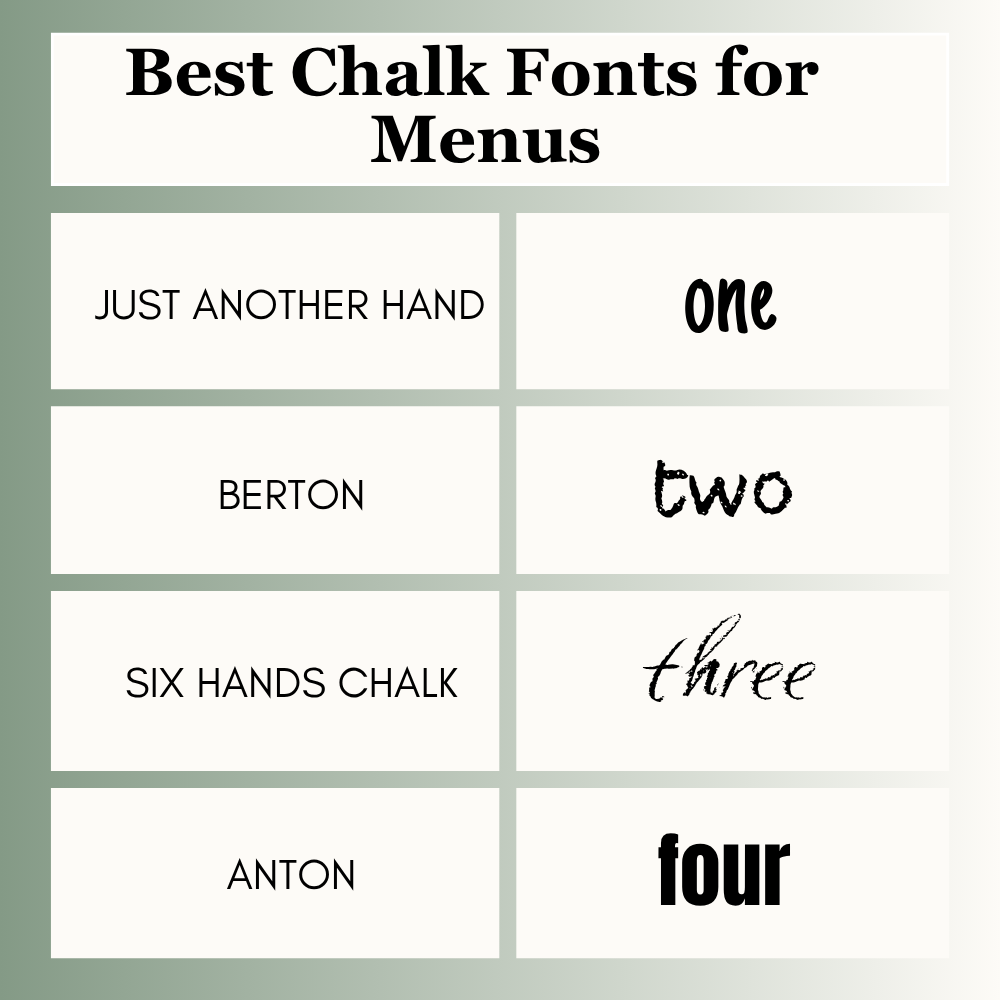
Best Chalk Fonts for Menus
Menus should feel clear and welcoming.
Best picks:
- Just Another Hand
- Berton
- Six Hands Chalk
- Anton
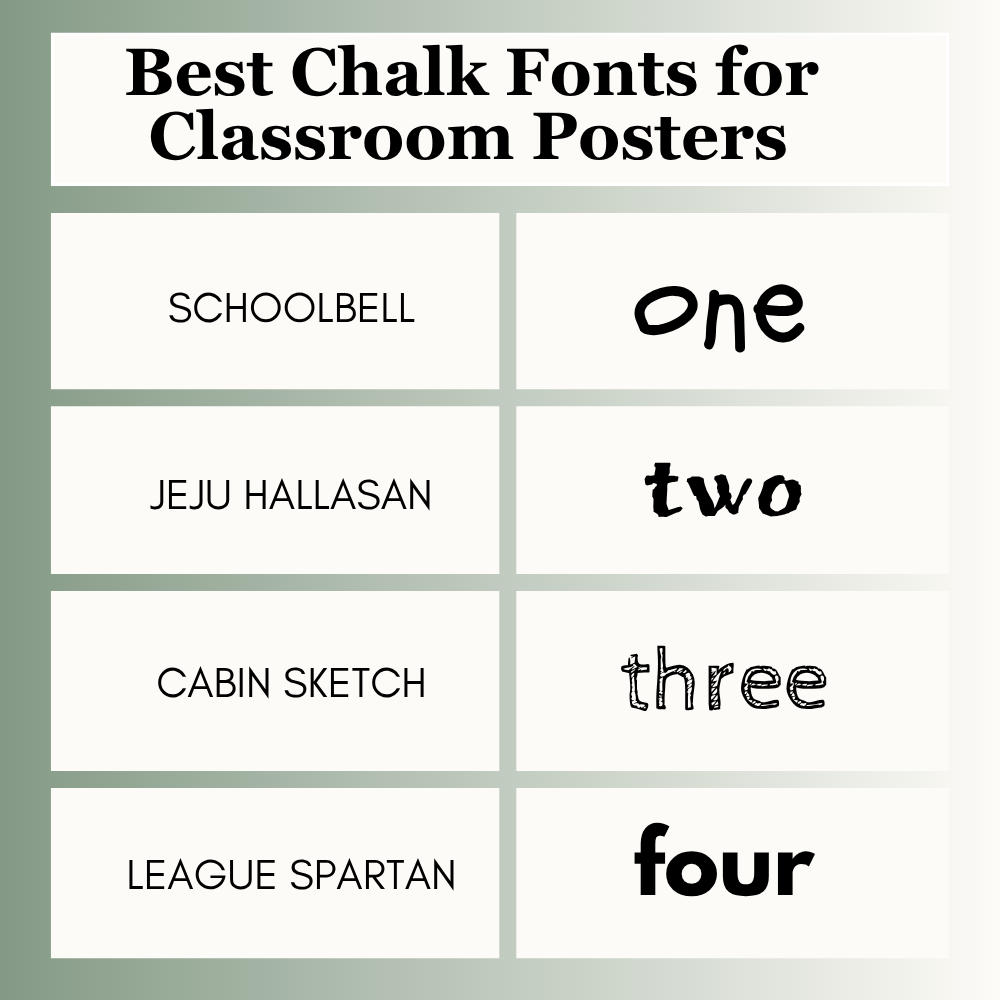
Best Chalk Fonts for Classroom Posters
Teachers need friendly and readable fonts.
Best picks:
- Schoolbell
- Jeju Hallasan
- Cabin Sketch
- League Spartan
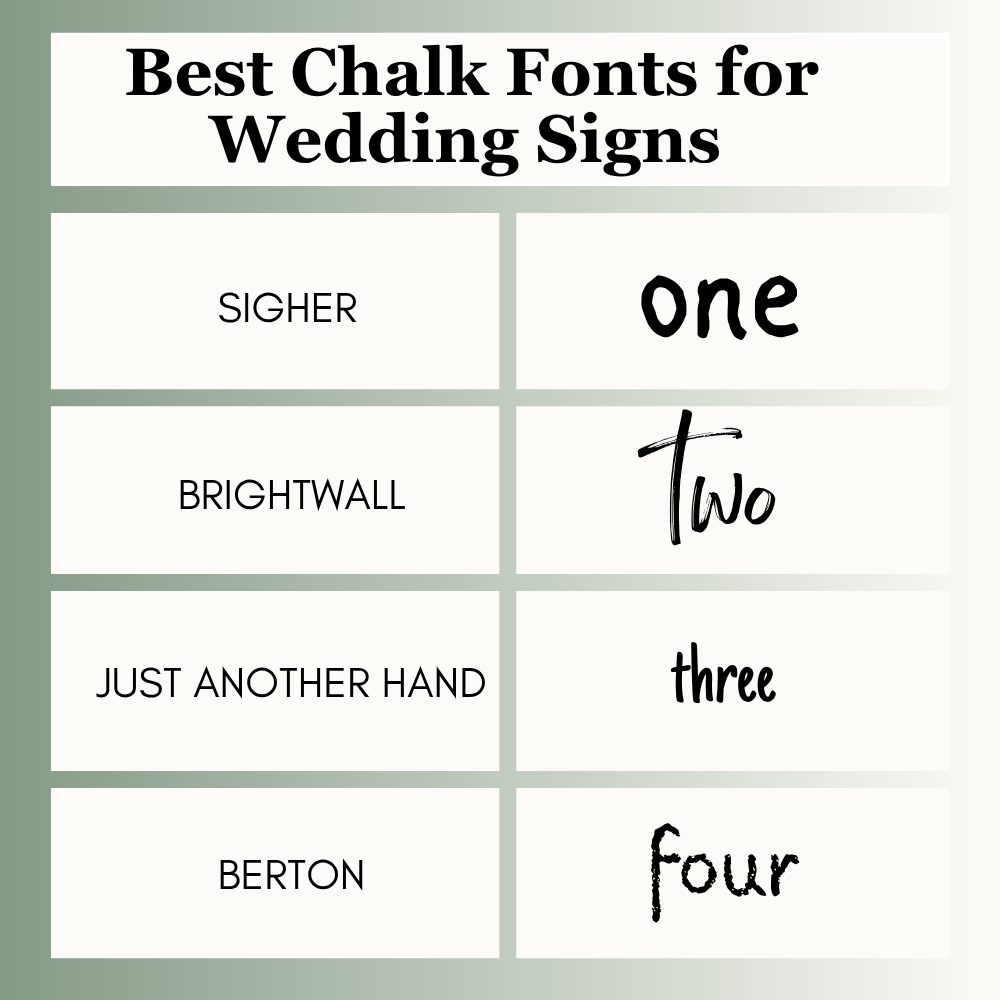
Best Chalk Fonts for Wedding Signs
Signs should feel elegant and warm.
Best picks:
- Sigher
- Brightwall
- Just Another Hand
- Berton
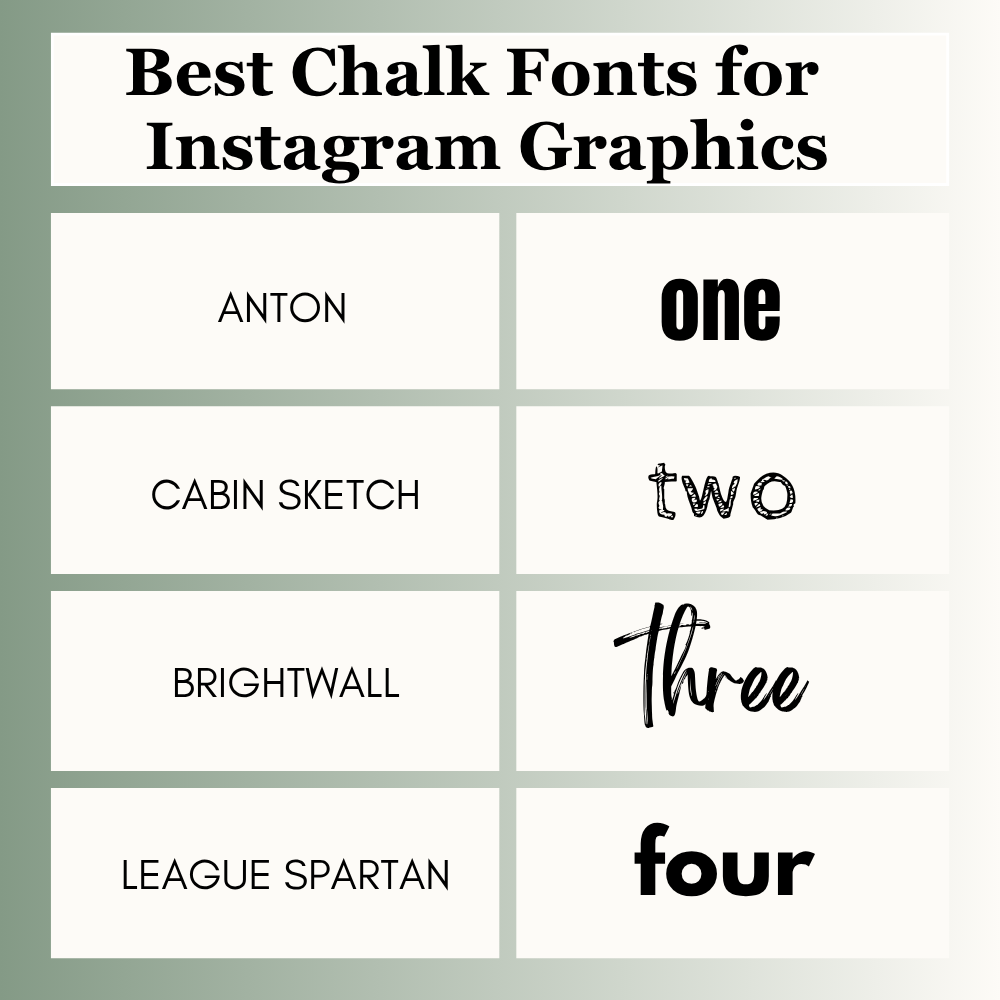
Best Chalk Fonts for Instagram Graphics
Social media users scroll fast, so readability matters.
Best picks:
- Anton
- Cabin Sketch
- Brightwall
- League Spartan
Best Canva Font Pairings
The easiest formula is one strong heading font + one clean support font.
- Six Hands Chalk + DM Sans
- Cabin Sketch + Poppins
- Schoolbell + Open Sans
- Berton + Montserrat
- Just Another Hand + League Spartan
This keeps your design stylish and balanced.
How to Choose the Right Chalk Font
Use this quick method:
1. Know Your Goal
Menu, poster, sign, classroom design, ad, or social media graphic?
2. Know Your Audience
A café menu needs a different style than a school poster.
3. Check Readability
Can users read it in two seconds?
4. Test on Mobile
Always preview your design on phone size.
5. Keep It Simple
Use one heading font and one support font in most designs.
Common Mistakes to Avoid
Many Canva users make these simple mistakes:
- Using too many fonts
- Choosing unreadable script styles
- Making headings too small
- Ignoring mobile preview
- Using decorative fonts for body text
- Overusing effects
Avoiding these mistakes can improve your design quickly.
Six Hands Chalk is one of the best choices for authentic chalkboard designs.
Many strong free options include Six Hands Chalk, Cabin Sketch, Schoolbell, Just Another Hand, Berton, and Anton.